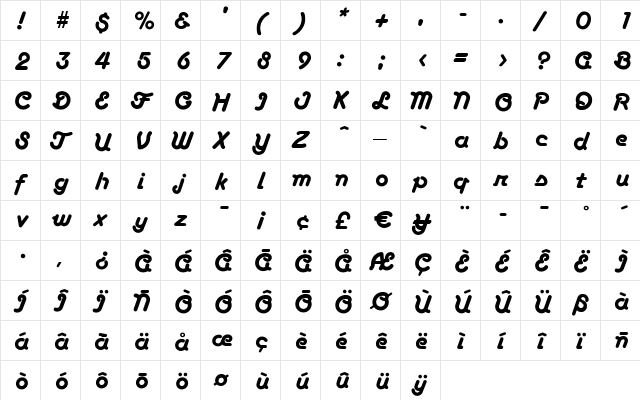
JenniferBecker Regular
Design Context for JenniferBecker Typeface
JenniferBecker is a composed and adaptable typeface that performs quietly and consistently across a wide range of design contexts.